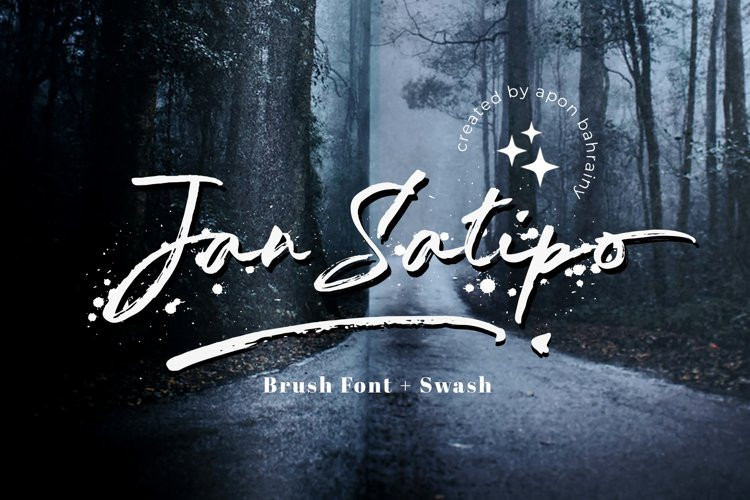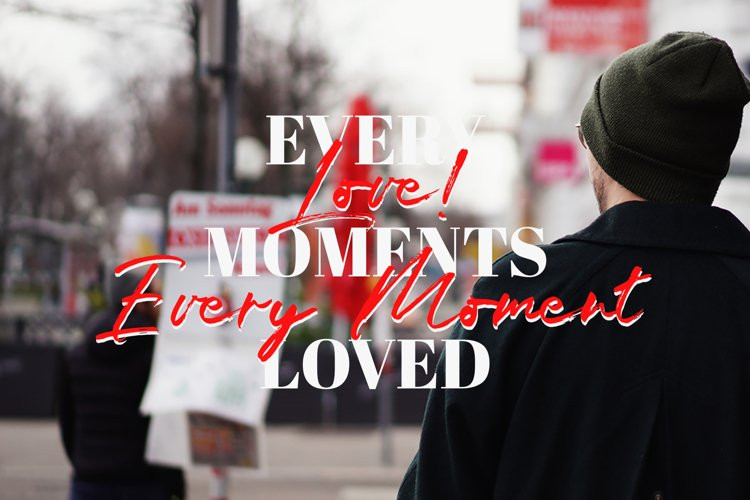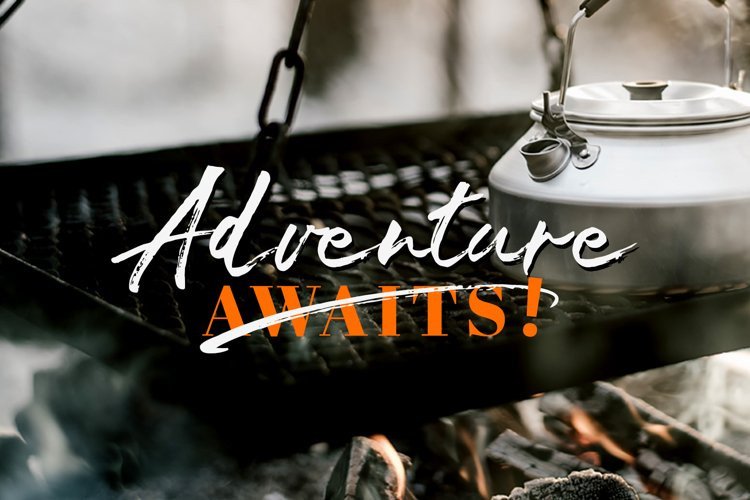
Jan Satipo Font
Jan Satipo FontIts a nice to present Jan Satipo Brush, a font with ending swash and extra underline ready to use for any design needs. And recomended for daily quotes, custom logo, title, poster, headline, social media post, invitation, and other design projects.